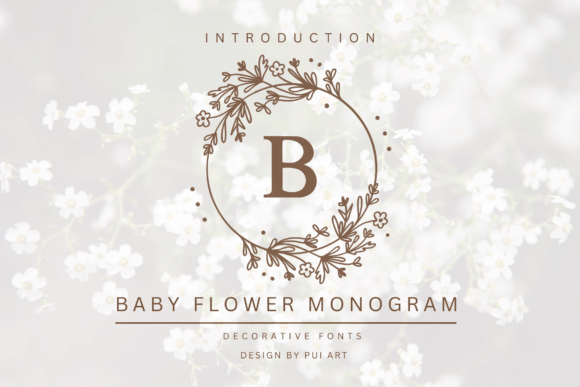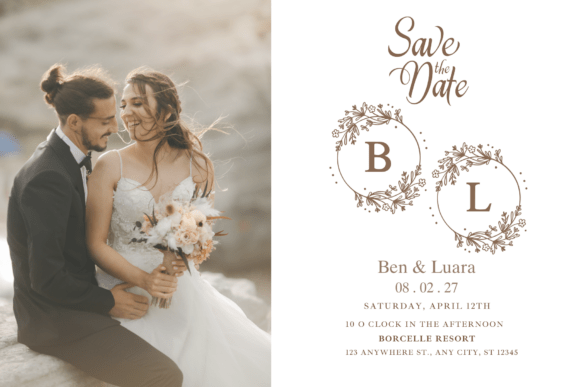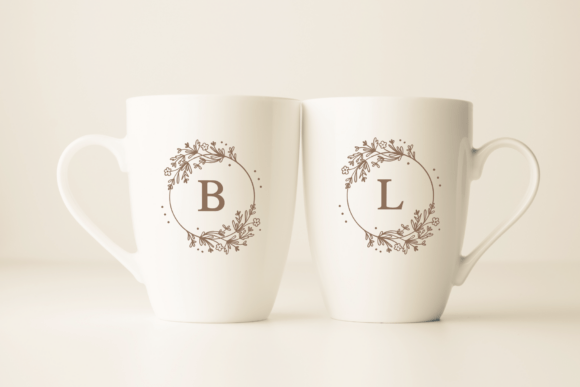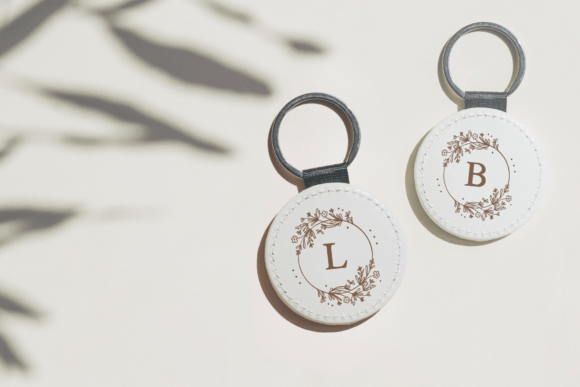
Baby Flower Monogram Font
About the Baby Flower Monogram Font
Discover the charm of Baby Flower Monogram Font. This font is a perfect blend of modern aesthetics and classic appeal. Baby Flower Monogram is an elegant font designed for special occasions. It features decorative letters inside a beautiful flower frame, making it perfect for invitations and wedding cards. This font adds a touch of charm and sophistication to any celebration!
Its ornate style makes it ideal for projects requiring a delicate and feminine touch, such as wedding stationery, branding for luxury beauty products, or high-end children’s apparel. The intricate detail shines in large sizes, making it perfect for logos, headlines, and short, impactful text on packaging.
However, its decorative nature renders it unsuitable for body text or extended reading. The decorative flourishes would hinder readability in smaller sizes or within long paragraphs. Avoid using it in user interfaces or contexts where clear, concise communication is paramount.
Pairing it with a clean sans-serif like Lato for body text or a simple serif like Playfair Display for supporting text would create a balanced and sophisticated design. For a more playful feel, a handwritten script font could complement its decorative elements, though careful consideration of kerning and spacing would be essential. The font’s overall personality is elegant and refined, suggesting luxury and celebration.
Baby Flower Monogram Font Example